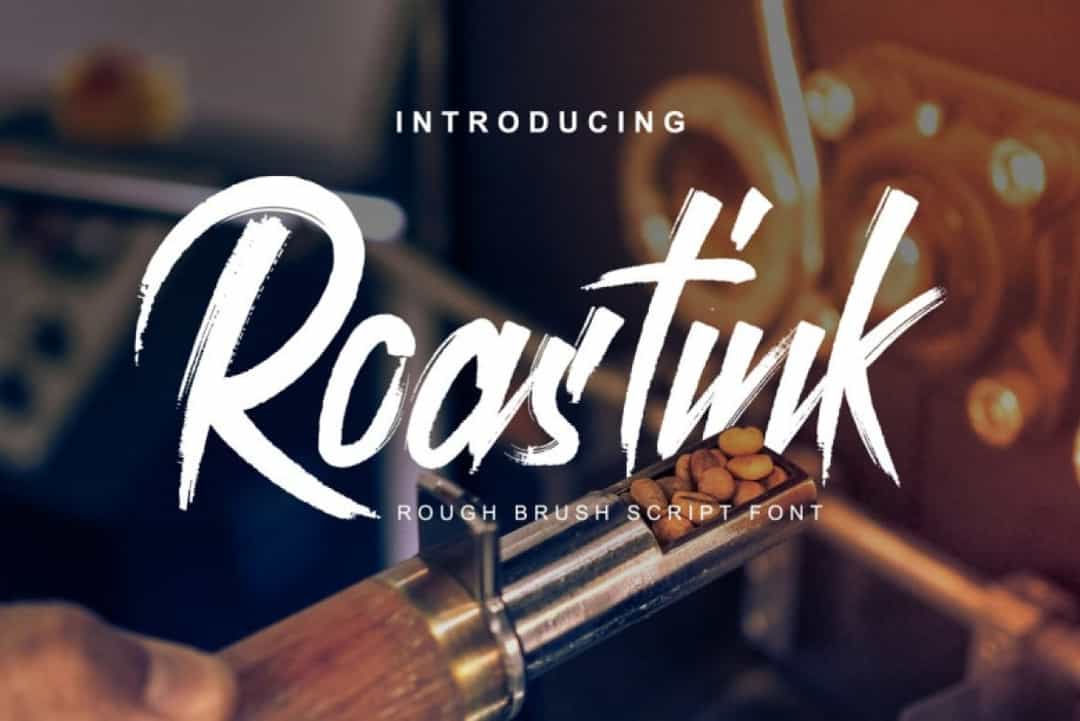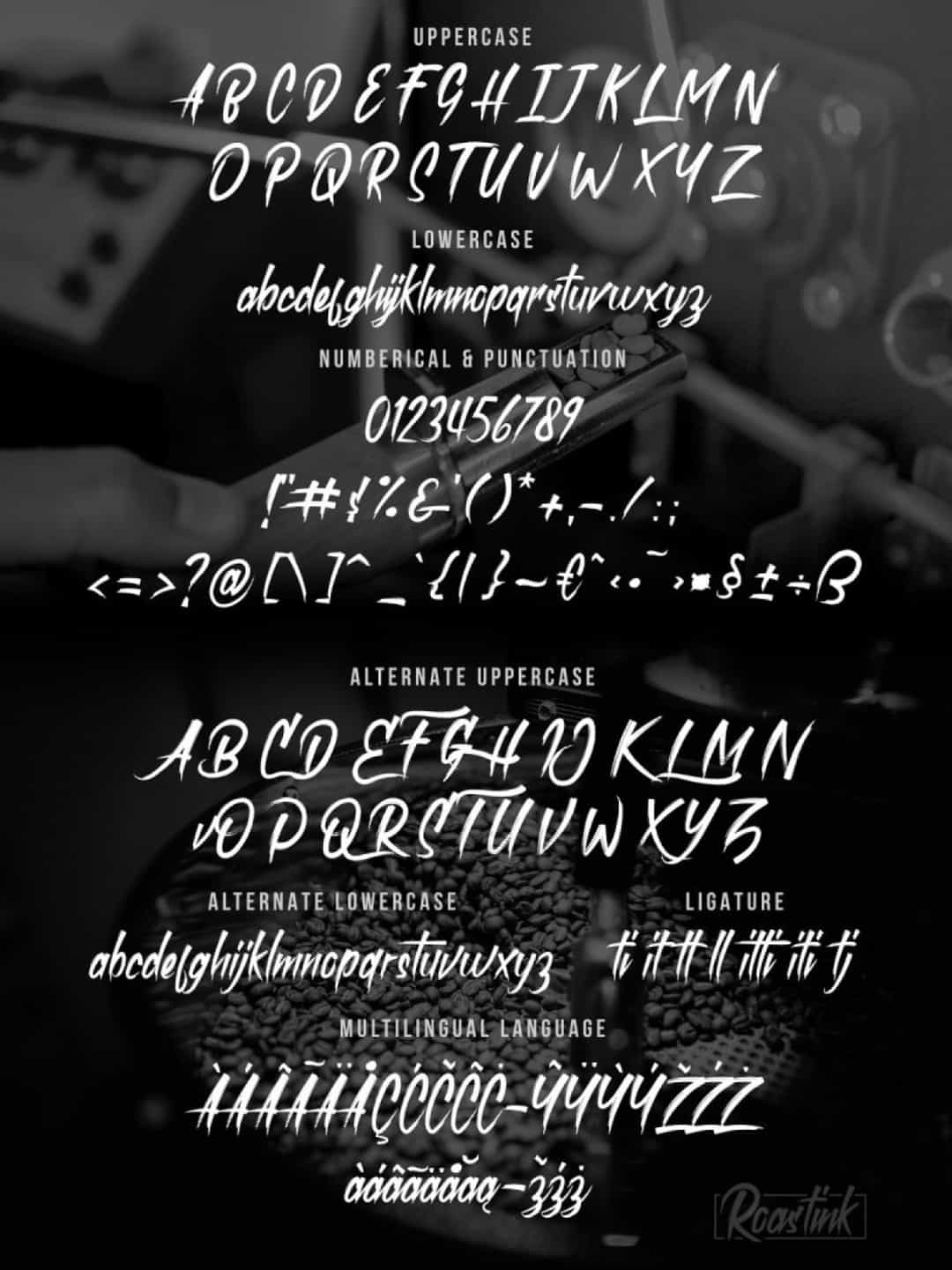
Roastinkis rough brush script font offers many opentype features, including lower and upper case standard characters, numerals, punctuation marks, multiple languages of characters, ligatures, alternative glyphs as well as additional ones.